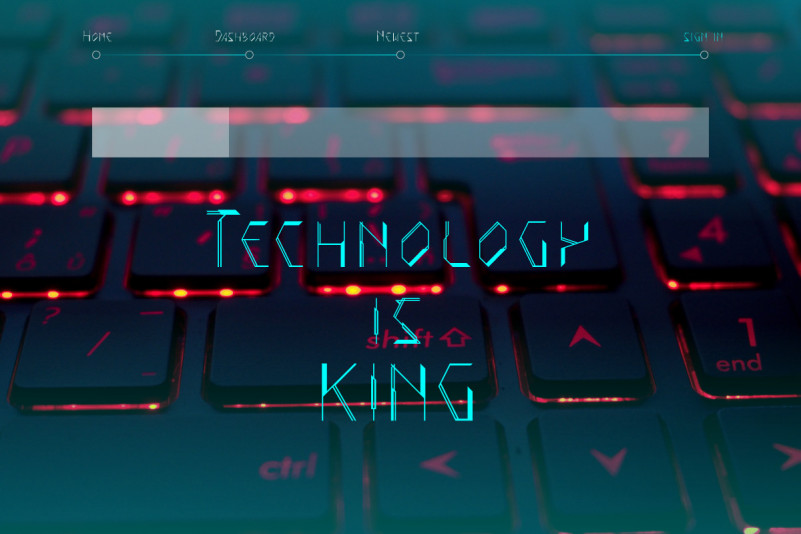
Satlyte Display Font
Introducing SATLYTE Sans Font Display, inspired by aerospace technology, digital, and aliens, SATLYTE present to headline the movie title and album cover.
SATLYTE Font Display also can be used for various purposes such as graphic design, print design, web design, logo, branding, and others.
IntrovArtZone